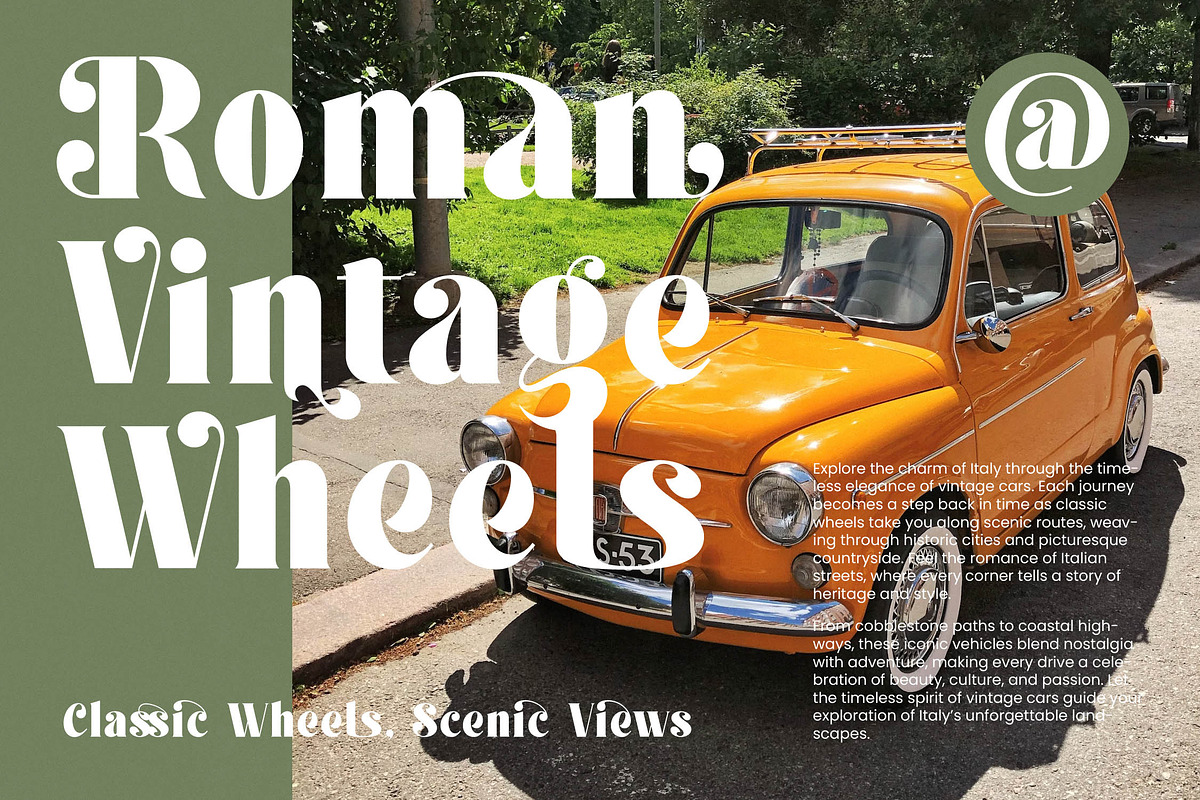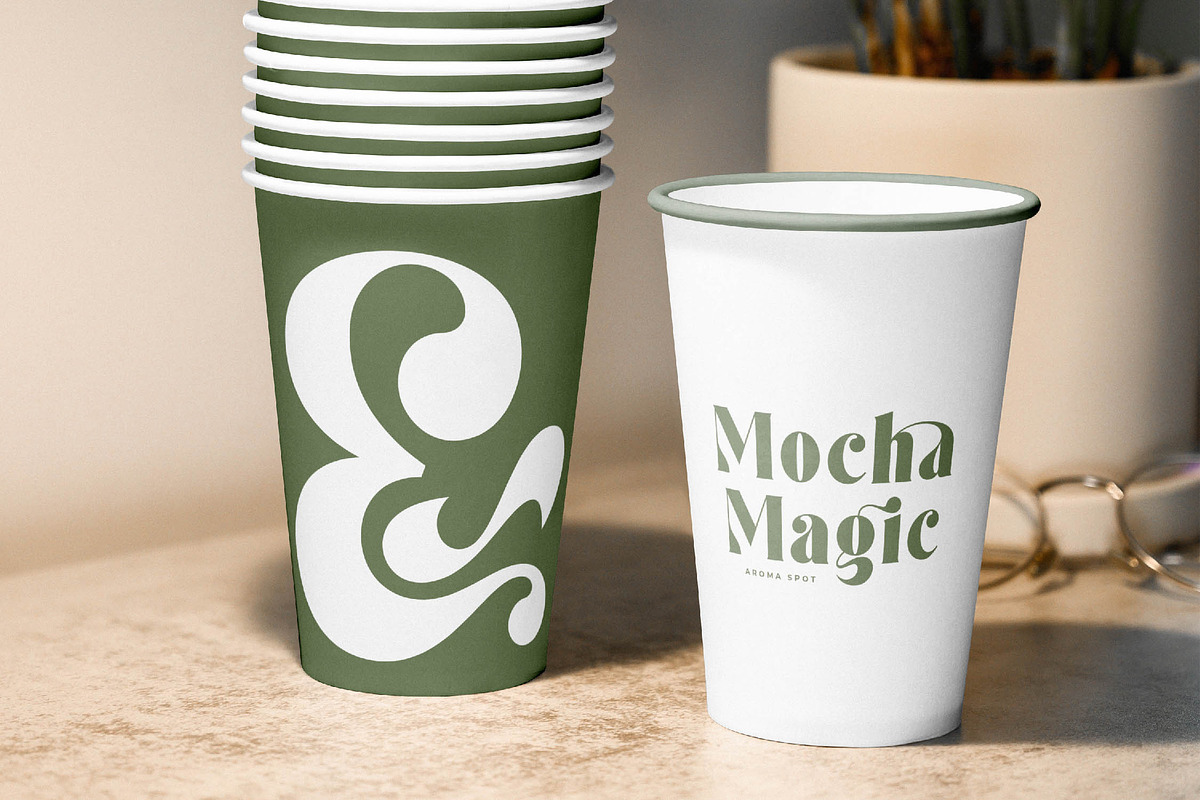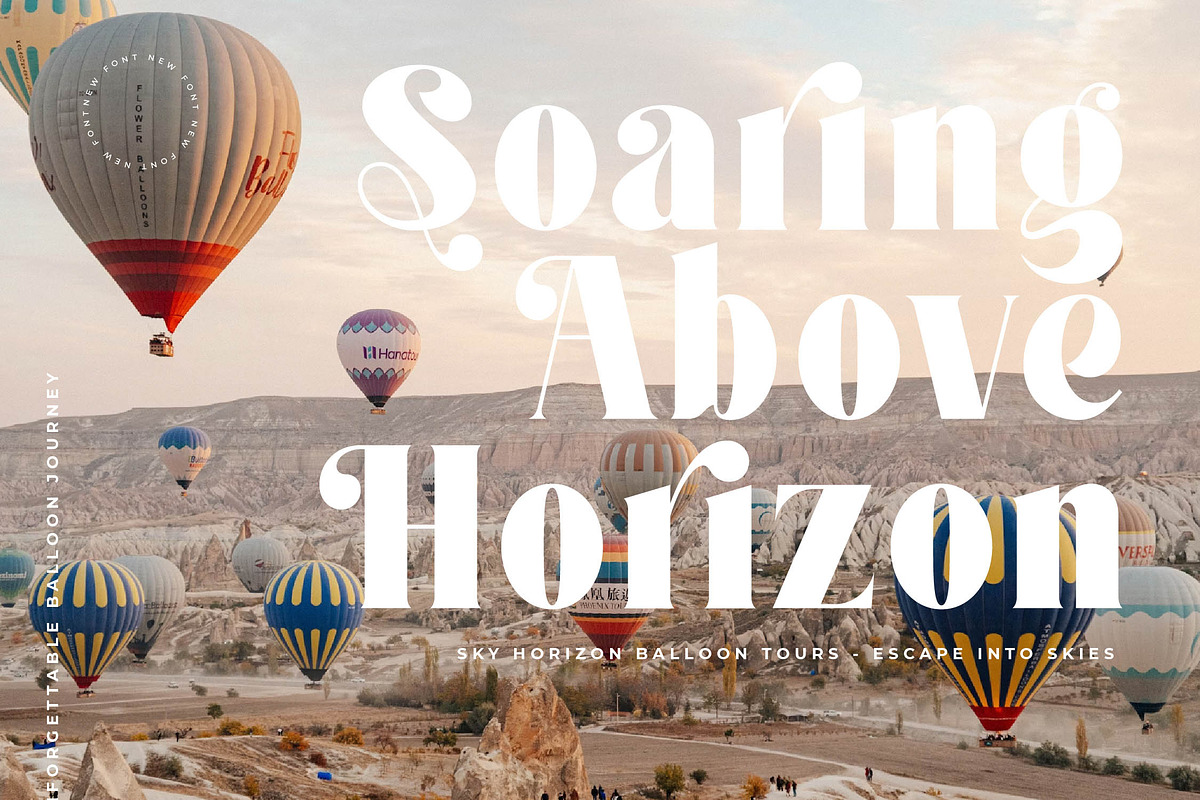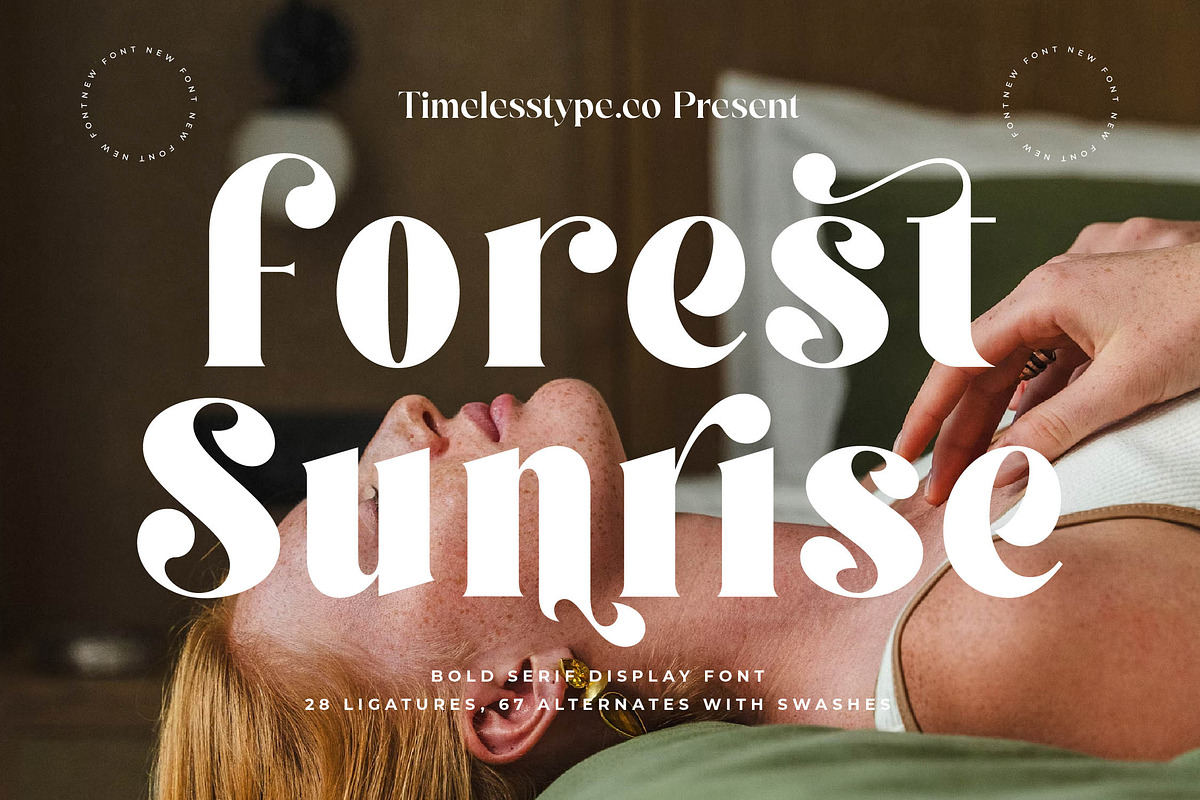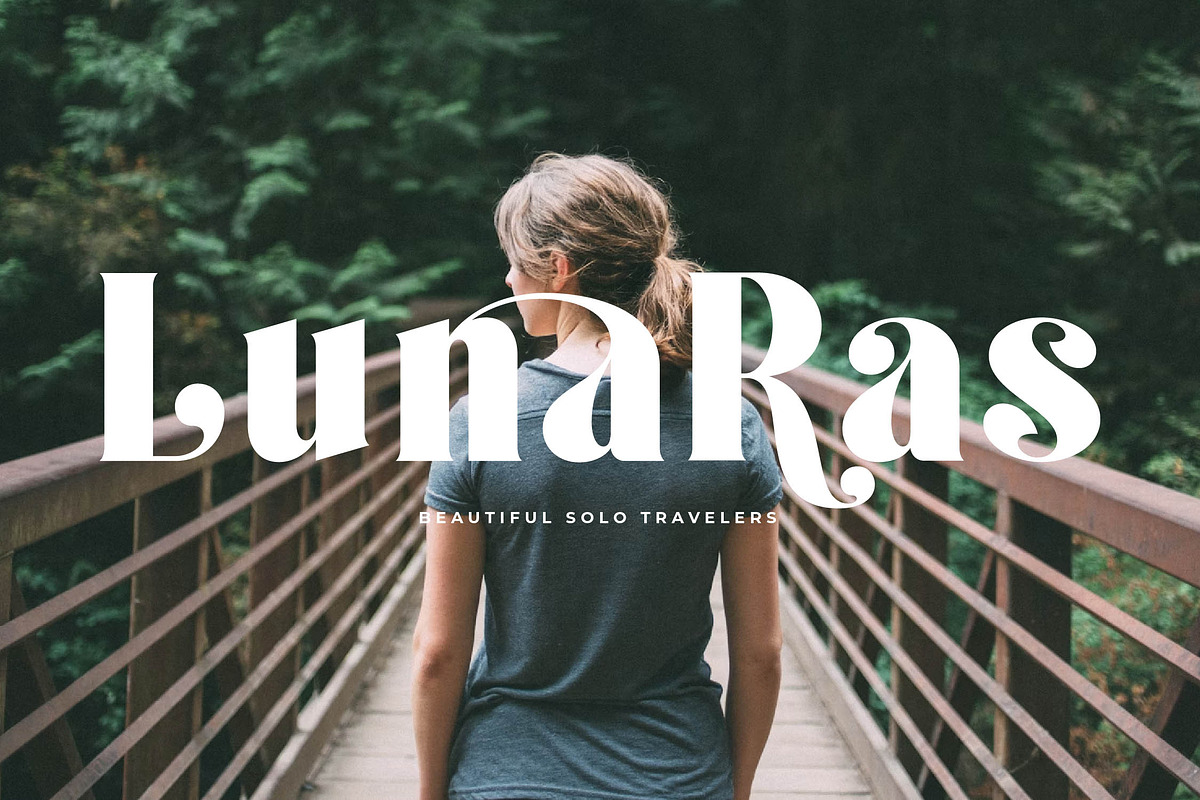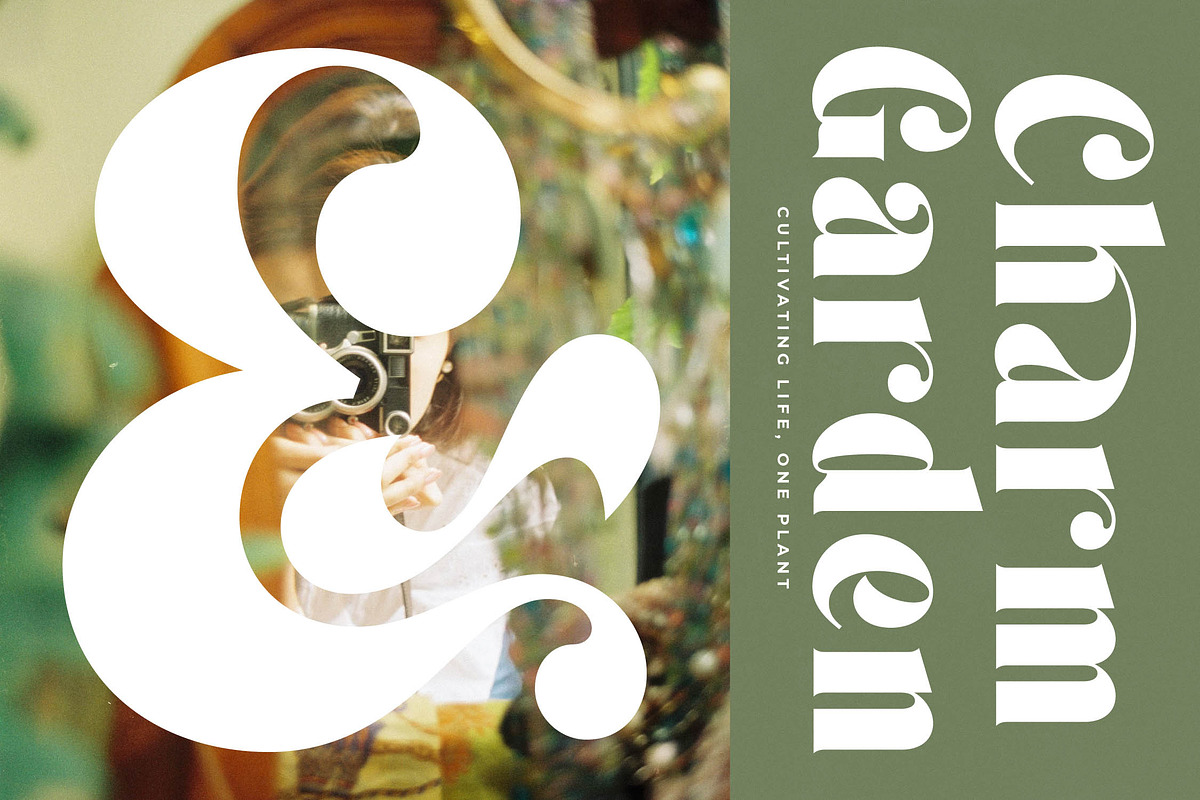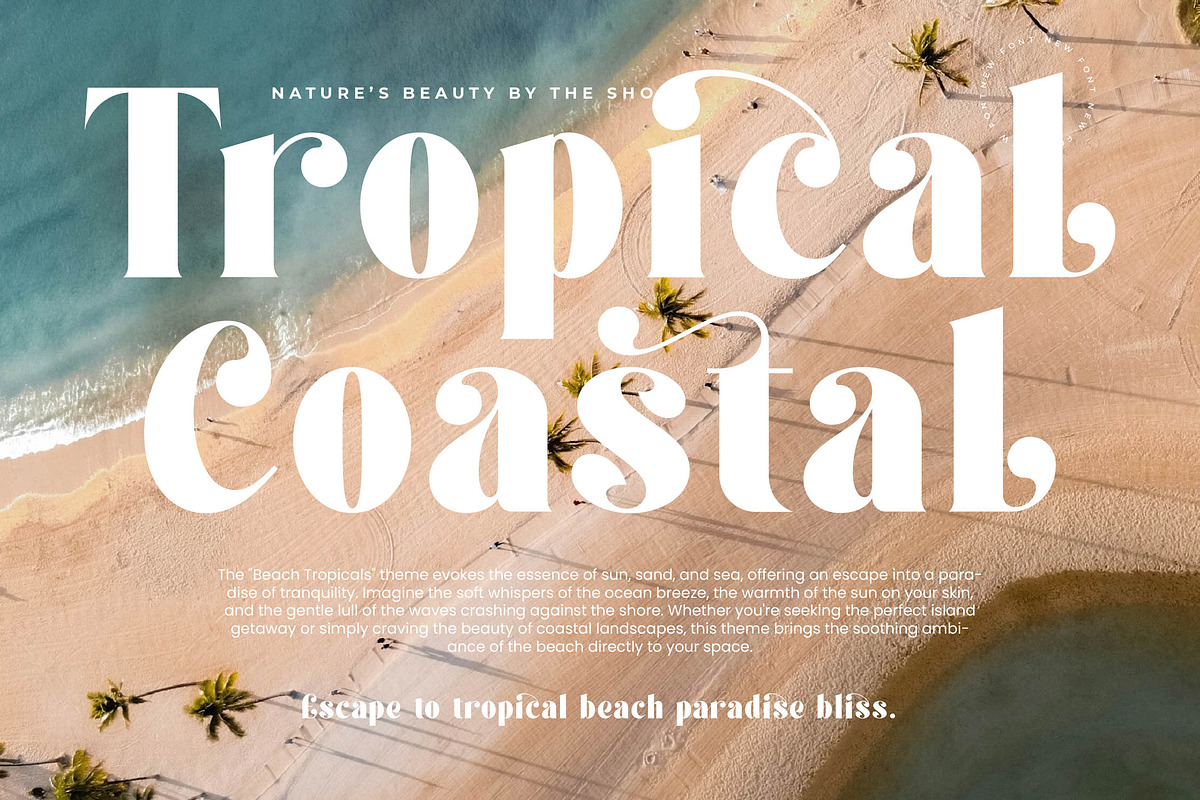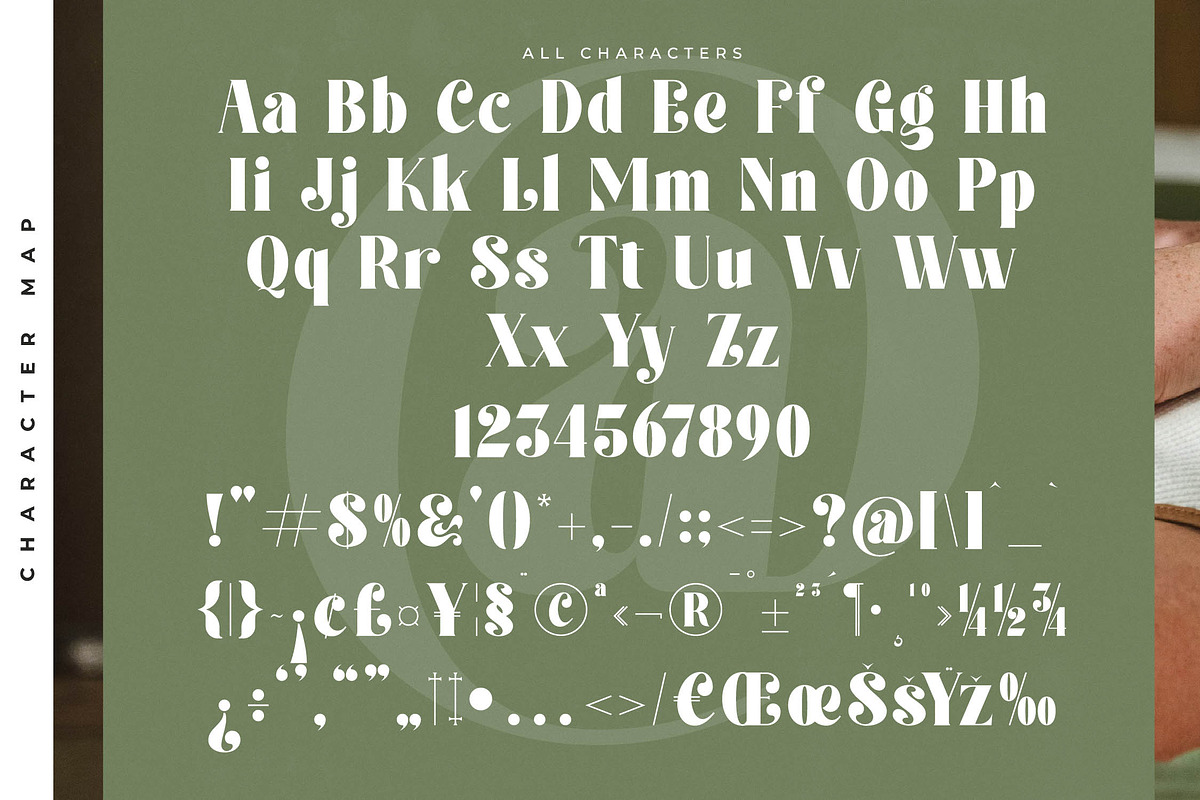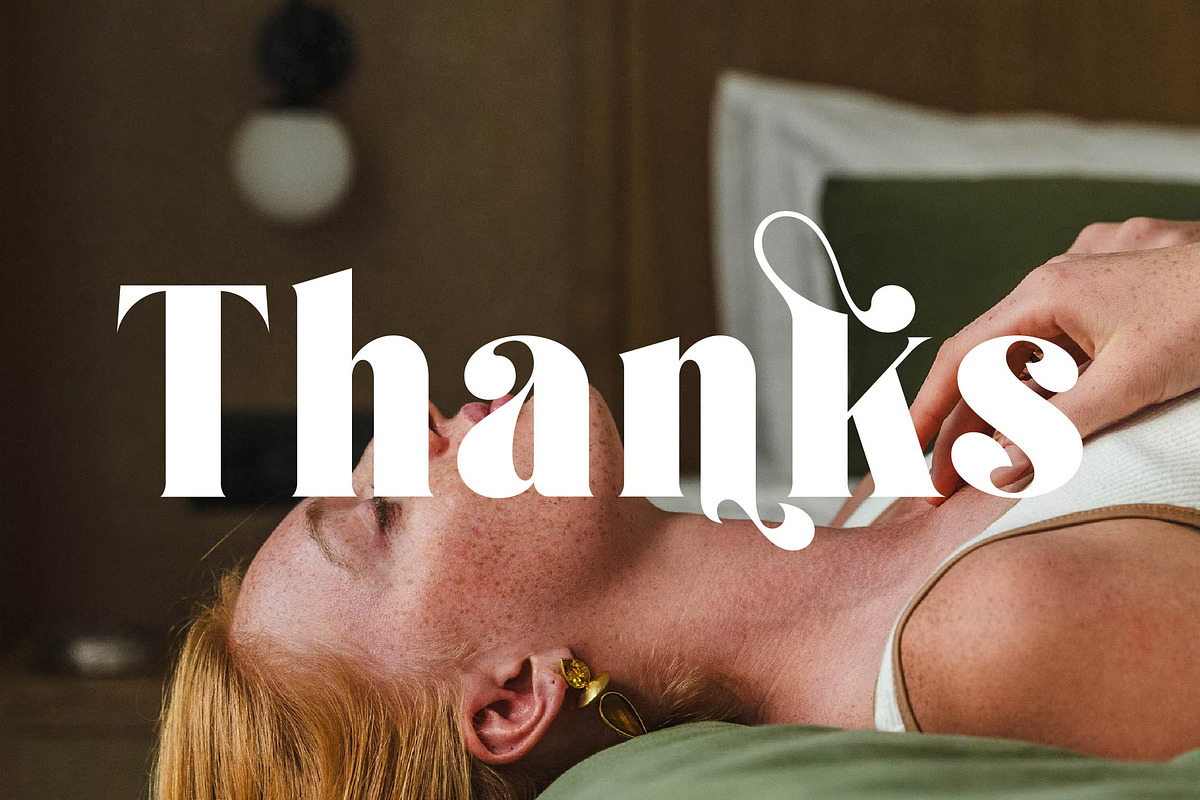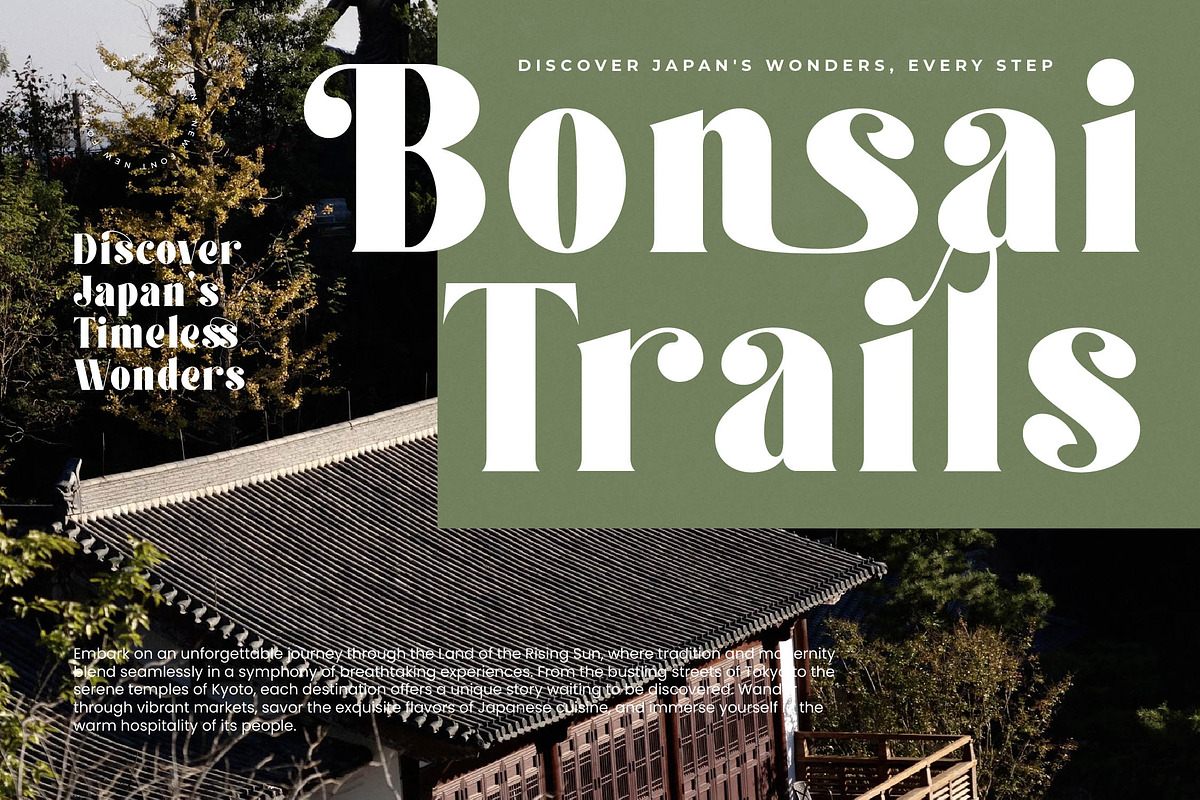
Forest Sunrise Bold Display Serif
Forest Sunrise captures the ethereal beauty of a new dawn, blending timeless elegance with a contemporary edge. It is a font designed to command attention while maintaining a sense of soft, natural grace.
Inspired by the interplay of light and shadow in a dense woodland, this typeface reflects the organic curves of nature juxtaposed against structured architectural lines. The result is a visual narrative that feels both grounded and aspirational.
This modern serif display is a masterclass in luxury typography, featuring a high-contrast serif design that ensures a powerful branding impact. It functions as an editorial font that bridges the gap between classic sophistication and experimental flair.
Perfectly aligned with the modern serif trend, this typeface meets the demand for editorial display fonts that offer more than just legibility. Its character-driven typography allows designers to tap into the "quiet luxury" aesthetic currently dominating global design.
Ideally suited for high-end logo design and comprehensive branding projects, it also shines in the worlds of editorial layout and luxury packaging. From romantic wedding stationery to bold fashion lookbooks, this font elevates every canvas it touches.
The package is rich with creative possibilities, including 28 unique ligatures and 67 decorative alternates featuring elegant swashes. With full multilingual support and a wide array of international characters, it is ready for global creative endeavors.
- Ligature 28 Alternate 67